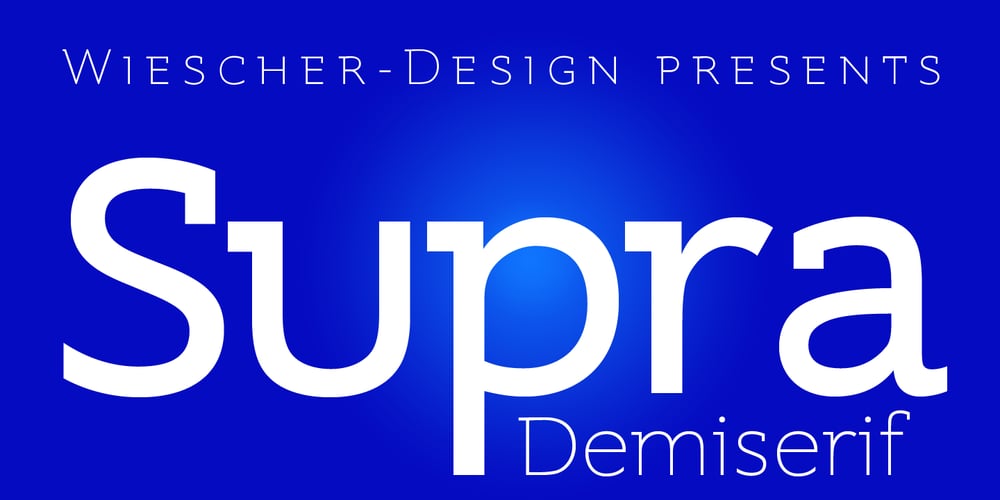
Supra Demiserif Font Family was designed by Gert Wiescher and published by Wiescher Design. Supra Demiserif contains 7 styles and family package options. »Supra Demiserif« is the demi serif addition to the Supra family. I am no fan of slab serif fonts, so I designed this one with half serifs, that makes the serifs less important. Then I found, that the italic does not look nice with slab serifs, so I did only one italic cut for the normal weight. The light and normal weights and the dominant x-height with its high ascenders make for easy reading of long copy. The heavy and x-light weights are great for elegant headlines. Supra is an OpenType family for professional typography with an extended character set of over 700 glyphs. It supports more than 40 Central- and Eastern-European as well as many Western languages. Ligatures, different figures, fractions, currency symbols and smallcaps can be found in all cuts. with each other.